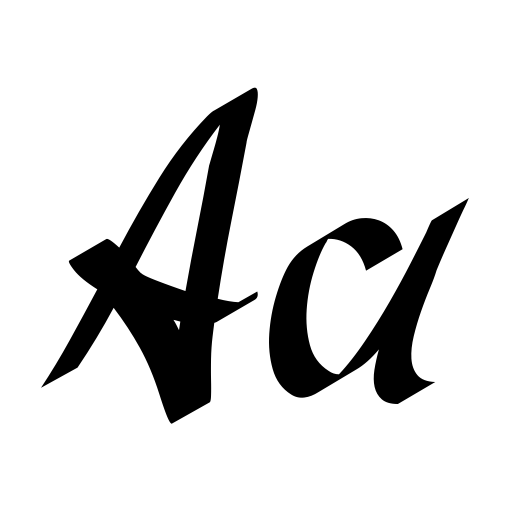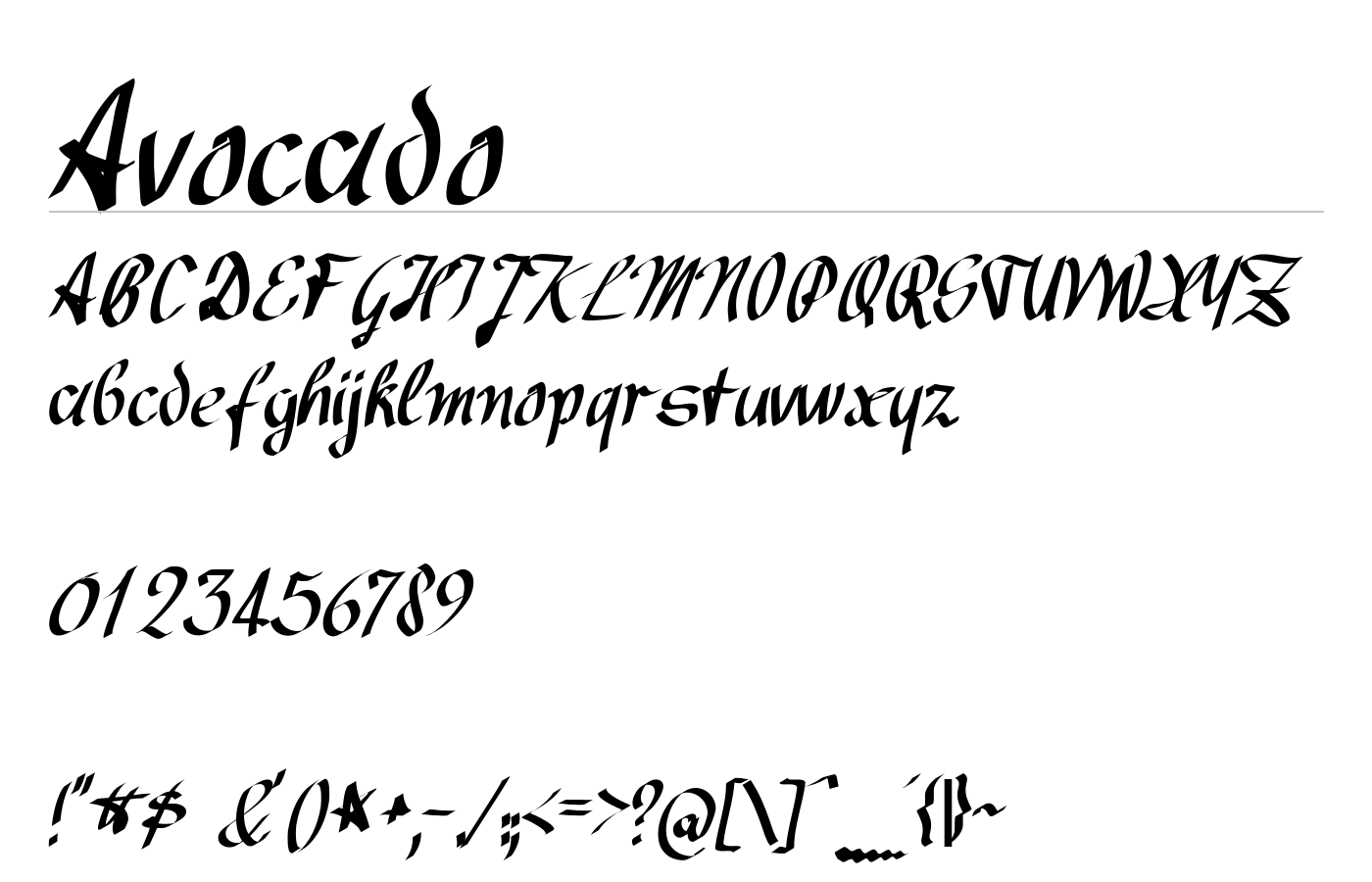
Avocado Font is a distinctive script typeface with a calligraphic flair, featuring sharp, angled strokes and a dynamic, flowing style that conveys energy and elegance. Its medium weight and high contrast between thick and thin lines give it a bold yet refined appearance, making it ideal for creative branding, invitations, and headlines where a stylish, artistic touch is desired. This font works best in display uses where its unique character shapes can stand out and add personality to luxury or fashion-oriented projects.
Avocado Font
About Avocado Font
| Font family | Avocado Font |
| Designer | Peter Wiegel |